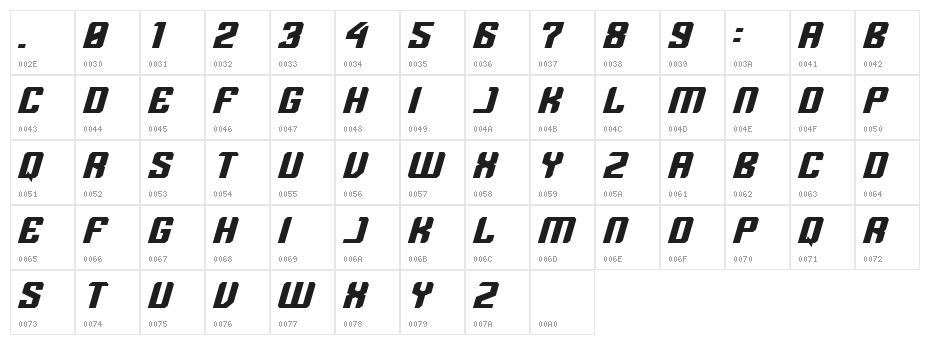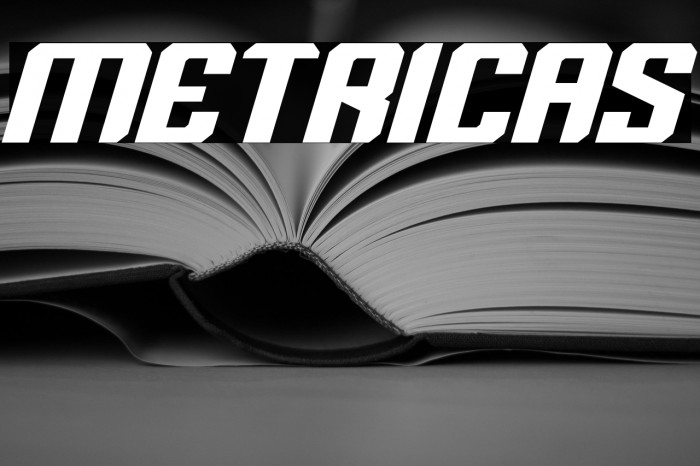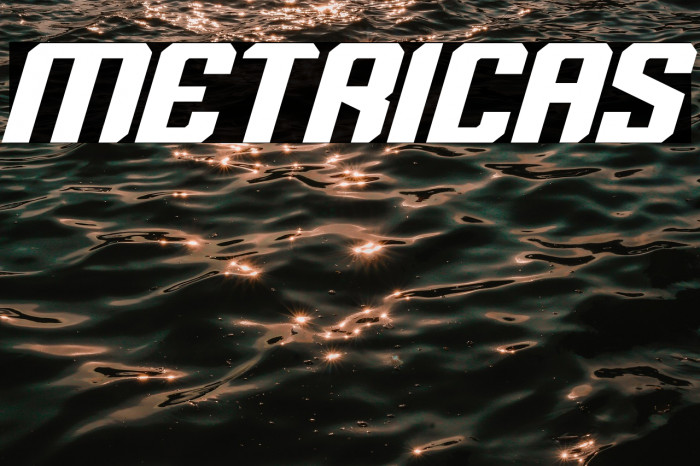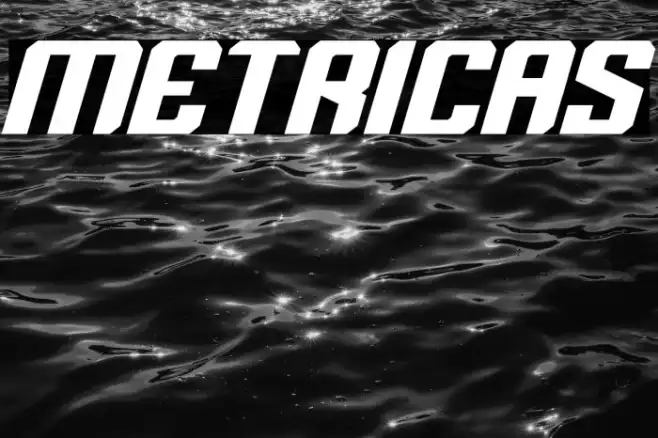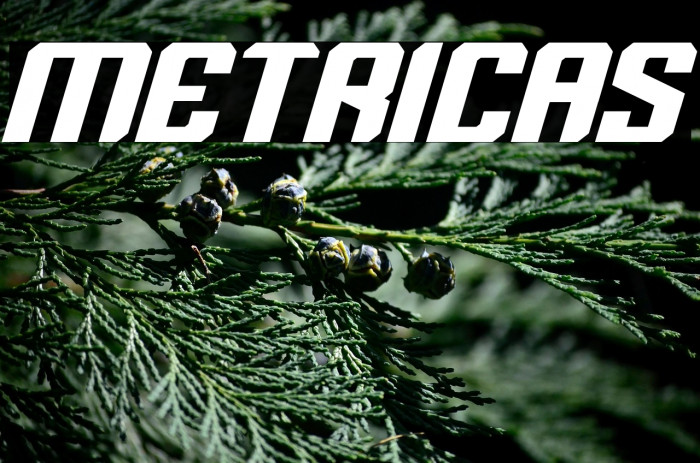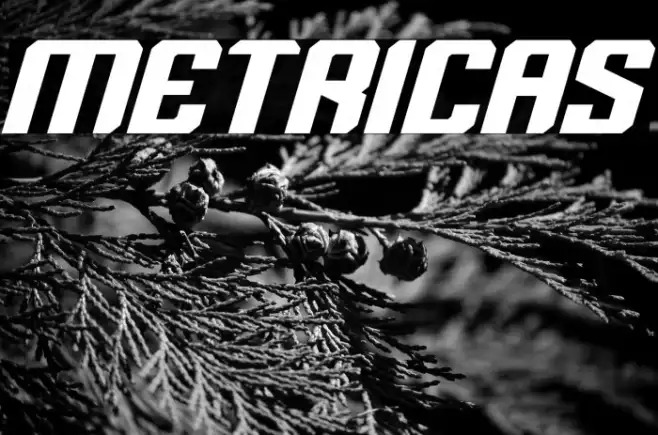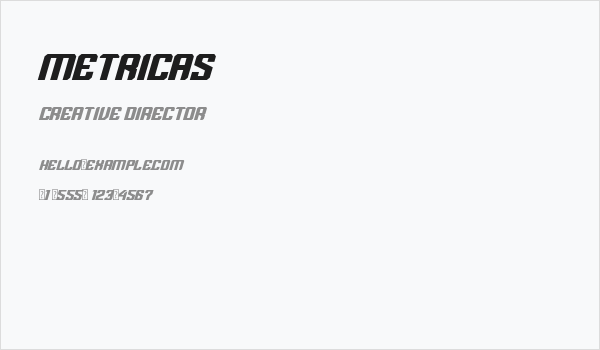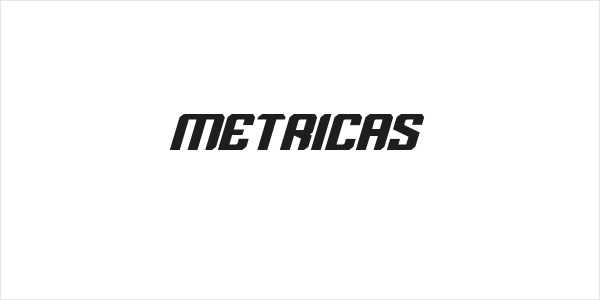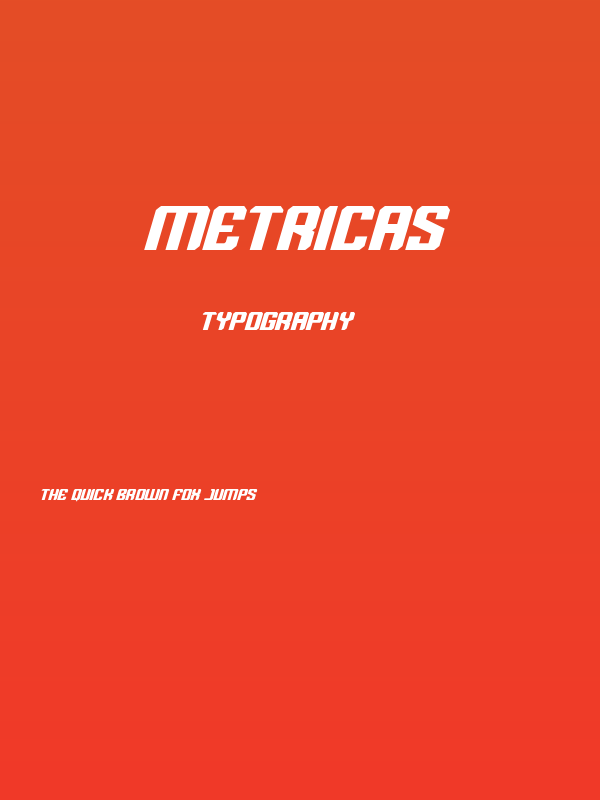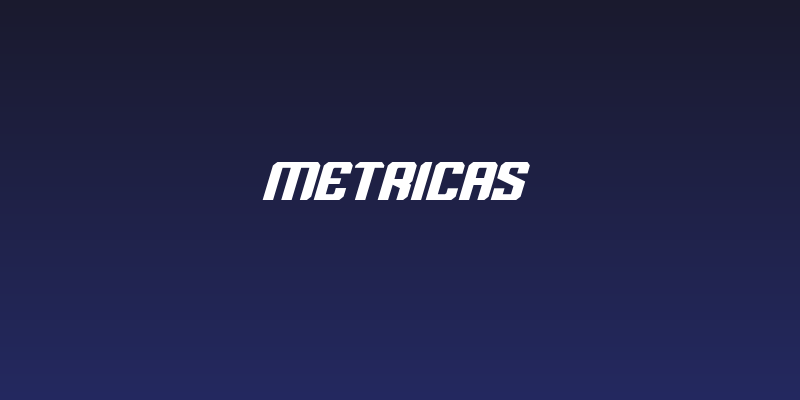
Metricas Font
Metricas Description
This font features a bold and dynamic style with a strong geometric influence. The characters are designed with sharp angles and a forward-leaning slant, giving a sense of motion and energy. The uppercase and lowercase letters maintain a consistent width, contributing to a uniform appearance. The numbers and special characters follow the same design principles, ensuring cohesion across all elements. The font's thick strokes and angular cuts make it highly legible and impactful, suitable for attention-grabbing designs.
| Proposed Projects | Ideal for sports branding, dynamic posters, and modern logo designs. |